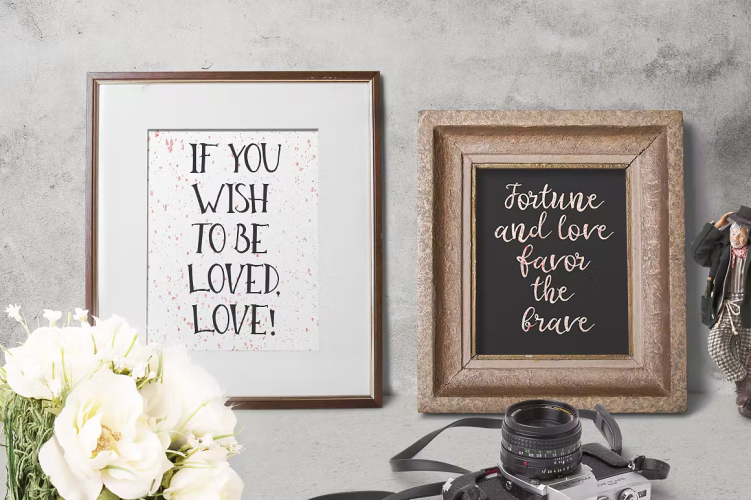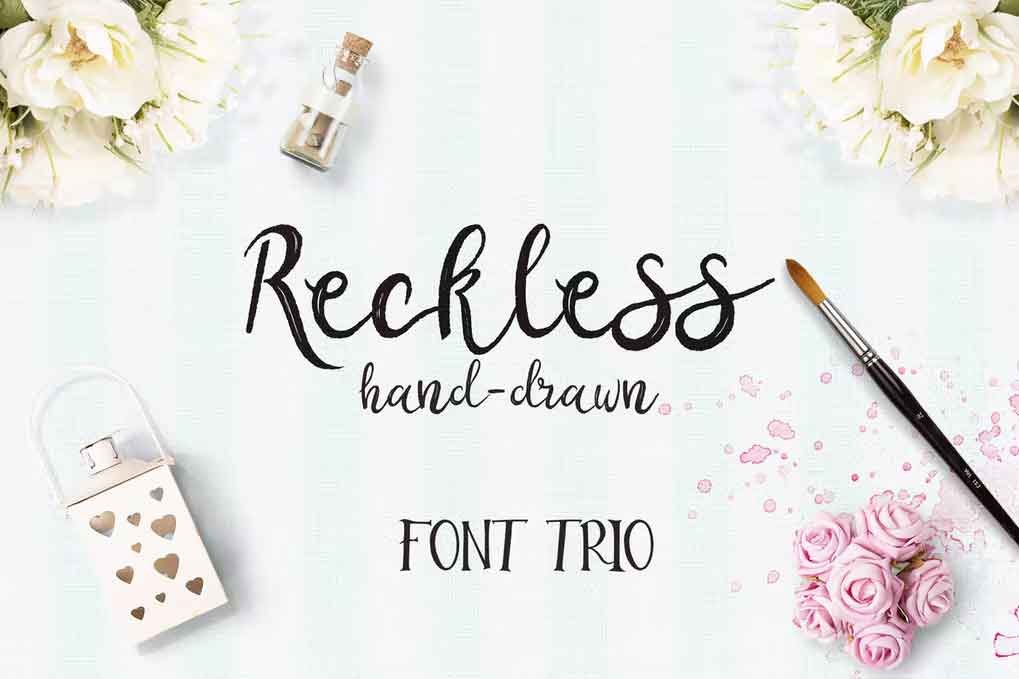
Reckless Font Trio
Package includes 3 handwritten font: Reckless Script handwritten brush with with ragged edges, Reckless Regular written by a brush with the shabby effect. Reckless HandDrawn it is sloppy outlines, which are suitable for posters and funny cards. Reckless Regular includes Latin Extended
Where Reckless Font Trio works best
Reckless Font Trio brings a personal, handwritten warmth to invitations, menus and place cards.
Craft brands — coffee, cosmetics, bakery — use scripts like Reckless Font Trio for signature-style logos and labels.
Pair Reckless Font Trio with a plain sans for quotes, stories and Pinterest pins that feel handmade.
What is Reckless Font Trio good for?
Reckless Font Trio is a Script And Handwritten typeface tagged Handwritten, Poster, Professional, Script. It works well for headlines, logos, posters, social media graphics and branding projects that need a distinctive script and handwritten look.